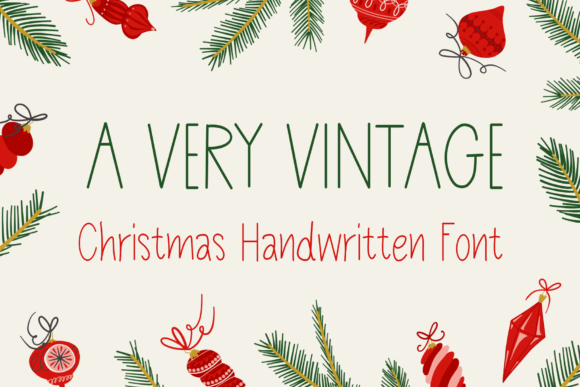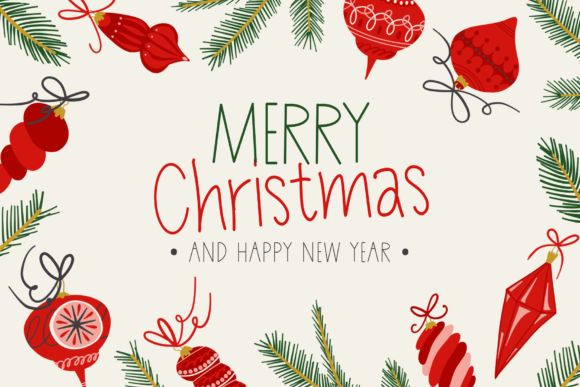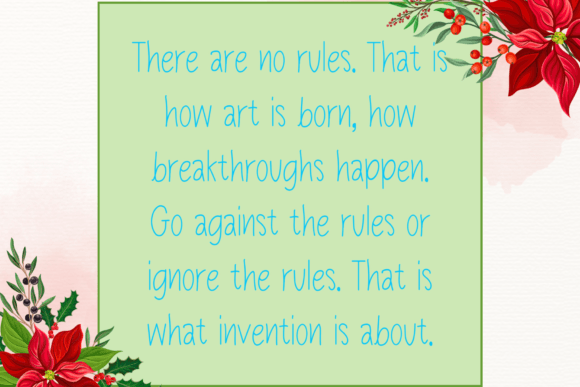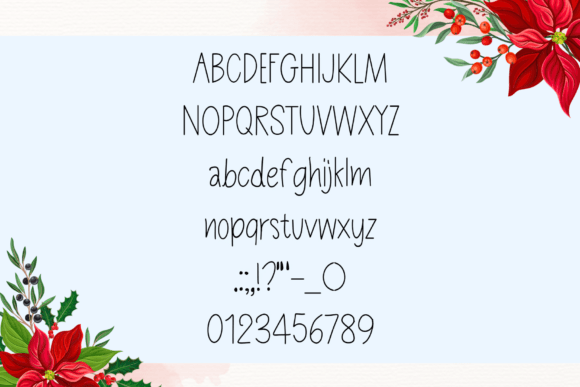
A Very Vintage Font
About the A Very Vintage Font
Explore the possibilities with A Very Vintage Font, a font that offers both beauty and functionality. A Very Vintage font is a sweet and friendly handwritten display font. Cute and fun, this font is ideal for crafts,digital design,presentation or writing wedding invitation, cards,or any other design that might need a fun touch! It is ideal for use in school for both teachers and students.It will work great for comic book style,game online,love shirt,posters,movie titles.
This font’s playful, handwritten style excels in headlines, short text blocks on posters, and branding for products targeting a young, fun-loving demographic. It works particularly well for projects emphasizing craft, nostalgia, or a handmade aesthetic. Avoid using it for body text or lengthy paragraphs; its informal nature makes it unsuitable for applications requiring high readability over extended periods.
Consider pairing “A Very Vintage Font” with a clean sans-serif like Helvetica Neue for contrast and readability, or a playful script font for a cohesive, hand-drawn feel. A geometric sans-serif would offer a modern counterpoint, creating visual interest. For more formal applications where a touch of the vintage style is desired, pairing it with a classic serif such as Garamond would work well.
Its overall personality is best described as cheerful and approachable, making it a great choice for brands conveying friendliness and approachability.